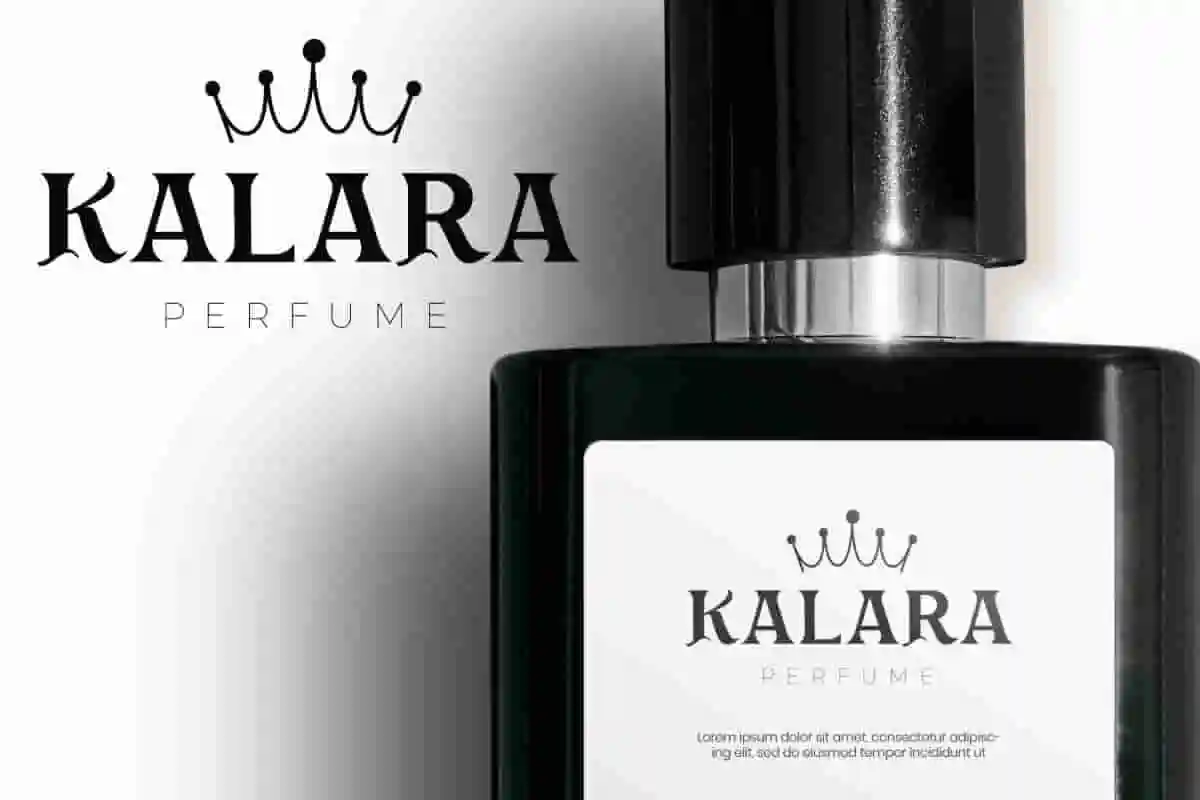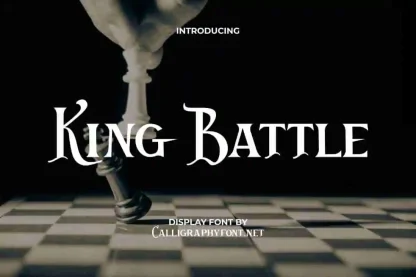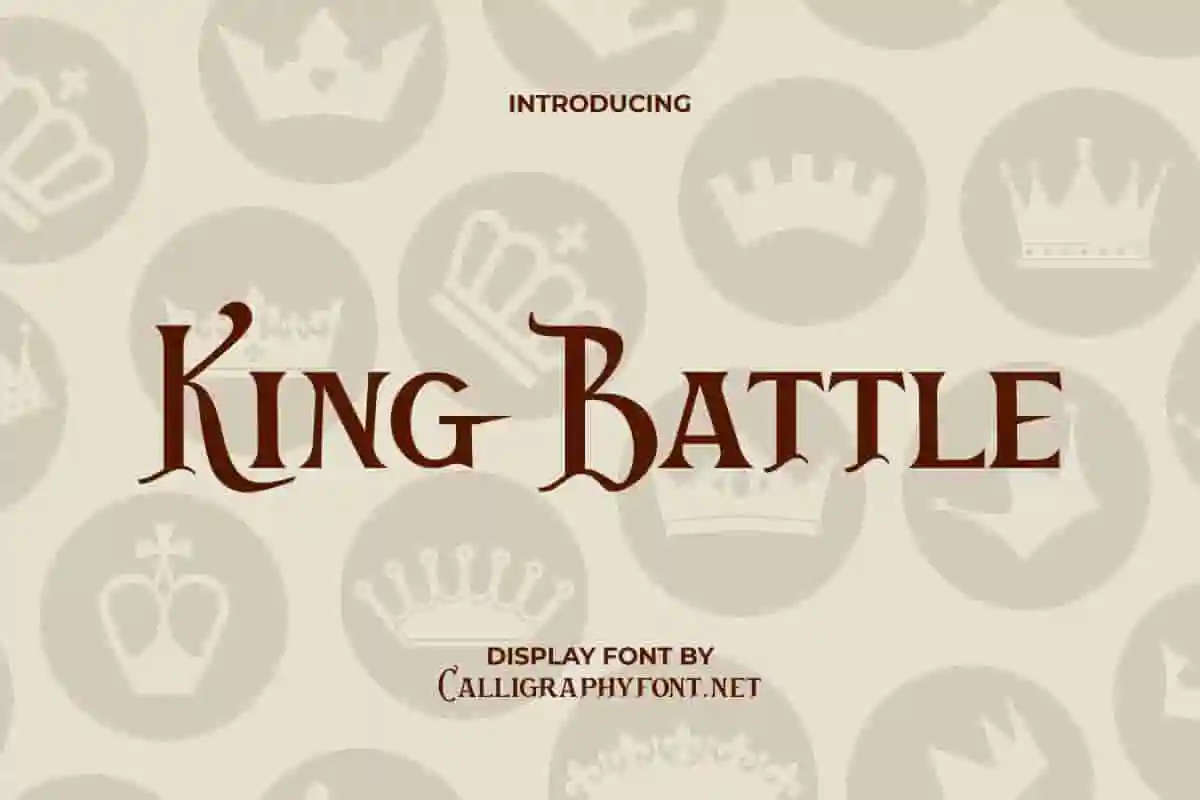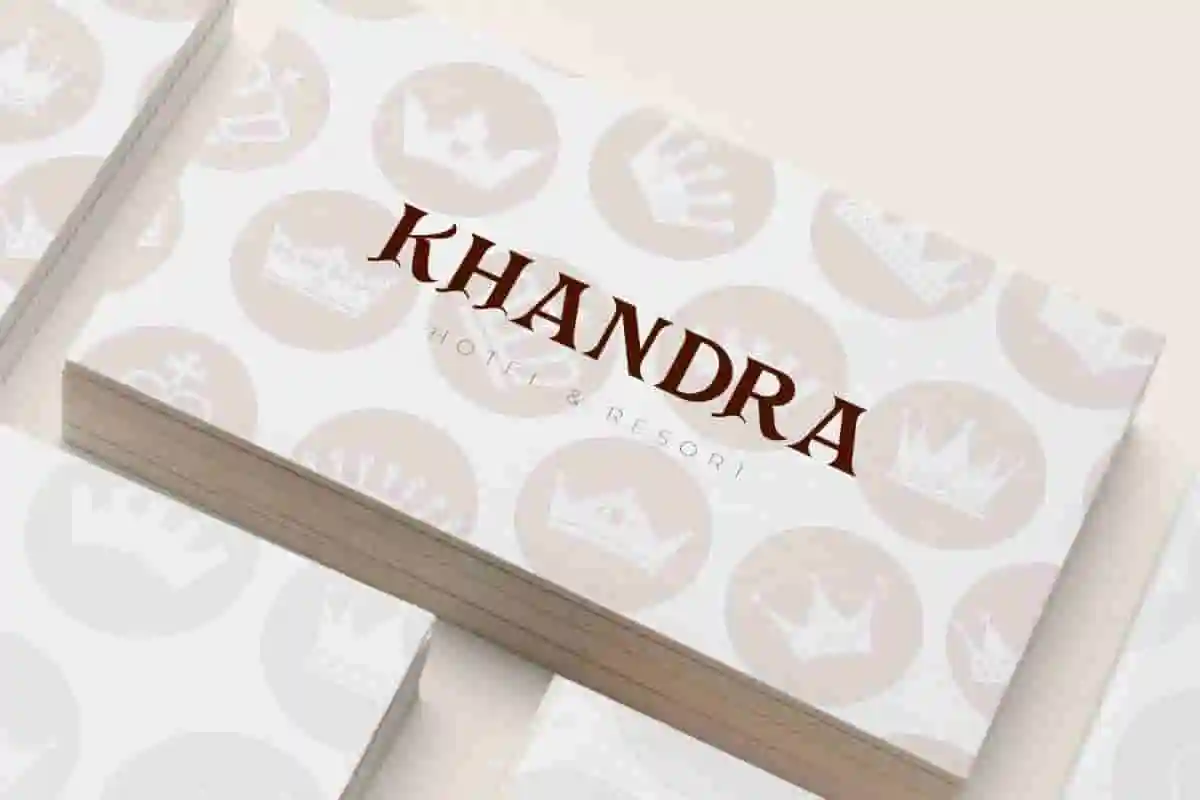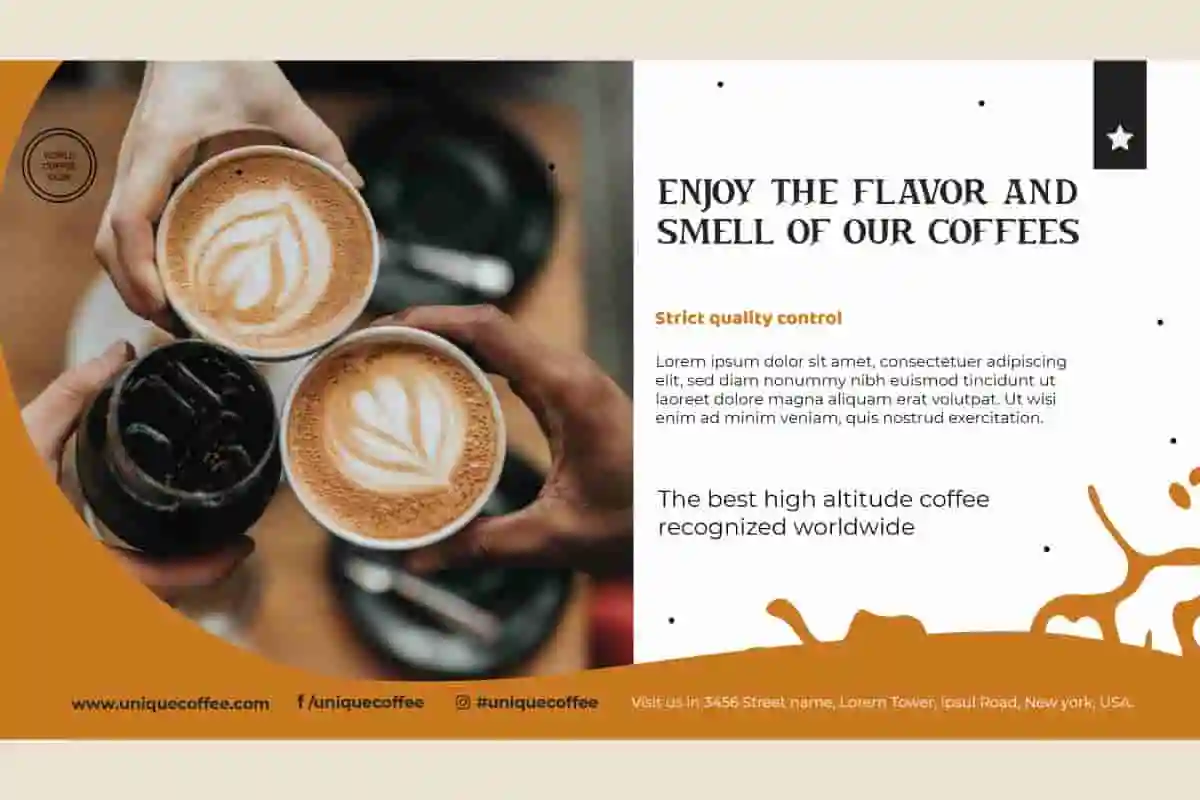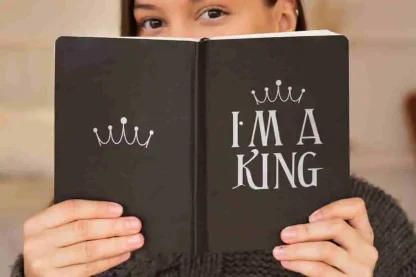
King Battle Font
King Battle Font is a cool display font with a dark tone that’s a little creepy made with a modern creative. It will work fine for advertisement, brochure, café, movie, perfume brand, poster, sticker, website, etc.
King Battle Font is a classic display font with the concept of an ancient kingdom. The typeface is also inspired by the gothic look, but is made more modern and doesn’t take away from the old feel so it will suit any industry, such as accessories, advertisement, artist, café, clothing brand, event or festival, fashion designer, film, furniture, handicrafts, hotel, movie, perfume brand, pottery, printing, publishing, restaurant, writer, etc.
King Battle Font is an attractive font that’s flexible against other typefaces or made to standout on its own into your creative projects, such as billboard, brand logo, brochure, business card, catalog, cover, embossed design, flyer, header, label, menu pamphlet, mockup design, packaging design, poster, price tag, screen print, signage, stationery, sticker, title, watermark, website, and many more.